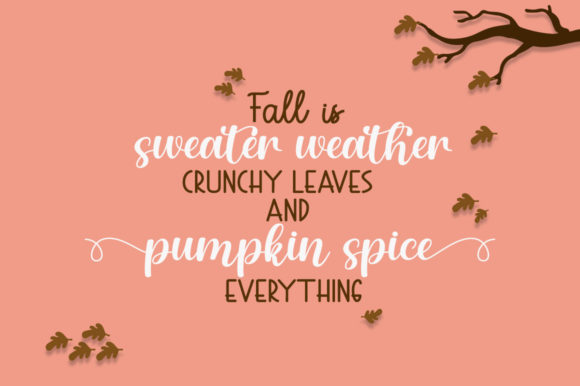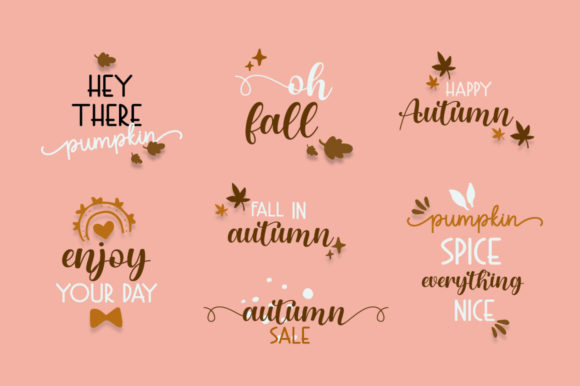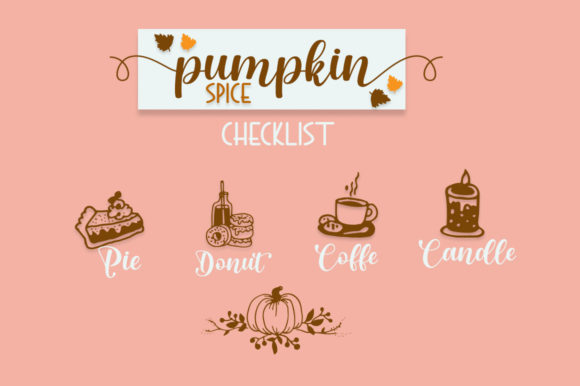
Introducing Autumn Celebrate Font: Elevate Your Designs with this Lovely Duo Font
As the seasons change and autumn arrives, it’s the perfect time to infuse your designs with a warm and cozy feel. What better way to do so than with a beautiful font that captures the essence of the season? Look no further than the Autumn Celebrate Font, a lovely duo font that combines the elegance of script with the simplicity of sans serif. In this article, we’ll dive into the features and benefits of this incredible font and explore how it can elevate your designs to new heights.
A Versatile Font for a Wide Range of Designs
One of the standout features of the Autumn Celebrate Font is its incredible versatility. Whether you’re working on a project for a client or creating something for your own brand, this font can adapt to a wide range of designs and styles. From rustic and earthy to modern and sophisticated, Autumn Celebrate Font can help you achieve the perfect look and feel. Its script and sans serif duo allows you to mix and match to create visually appealing combinations that will leave your audience impressed.
Add a Touch of Elegance to Your Creative Ideas
Autumn Celebrate Font is more than just a font – it’s a tool that can bring your creative ideas to life. With its beautiful curves and lines, this font adds a touch of elegance to any design. Whether you’re working on a logo, brochure, or social media graphics, Autumn Celebrate Font can help you create stunning visuals that capture attention and convey your message with style. Its versatility also makes it perfect for various design applications, including wedding invitations, packaging, and more.
PUA Encoded for Easy Access to Glyphs and Swashes
Another significant advantage of the Autumn Celebrate Font is that it’s PUA (Private Use Area) encoded. This means that you can access all the glyphs and swashes with ease, giving you even more creative freedom. PUA encoding allows you to use the font’s built-in features, such as ligatures, ornaments, and stylistic alternates, to add an extra layer of sophistication to your designs. With Autumn Celebrate Font, you can experiment with different combinations to create unique and eye-catching visuals.
Why Designers and Crafters Love Autumn Celebrate Font
So, what makes Autumn Celebrate Font a favorite among designers and crafters? Here are just a few reasons:
- Unique and eye-catching: The script and sans serif duo offers a fresh and distinctive look that sets your designs apart from the crowd.
- Ease of use: PUA encoding makes it easy to access glyphs and swashes, allowing you to focus on creating rather than struggling with technicalities.
- Versatility: From rustic to modern, Autumn Celebrate Font adapts to various design styles and applications.
- Elegance: The font’s beautiful curves and lines add a touch of sophistication to any design.
How to Make the Most of Autumn Celebrate Font
To truly make the most of Autumn Celebrate Font, here are some tips:
- Experiment with combinations: Try pairing the script and sans serif fonts to create visually appealing combinations.
- Play with glyphs and swashes: Use the PUA encoded features to add an extra layer of creativity to your designs.
- Mix and match: Don’t be afraid to try out different font sizes, colors, and styles to create a unique look.
| Font Name | Autumn Celebrate Font |
| Author | Fillo Graphic |
In conclusion, the Autumn Celebrate Font is a versatile and elegant duo font that can elevate your designs to new heights. With its PUA encoding, beautiful curves, and lines, this font offers endless creative possibilities. Whether you’re a designer or crafter, Autumn Celebrate Font is a must-have in your font collection. So why wait? Add Autumn Celebrate Font to your favorite creative ideas and watch them come alive!